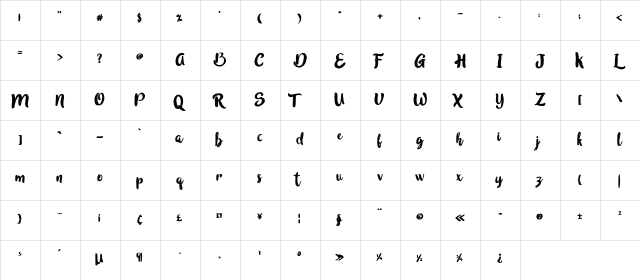
in blossom vintage Regular
Design Context for in blossom vintage Typeface
in blossom vintage wears its vintage influences proudly, with letterforms that recall mid-century signage, classic packaging, and nostalgia-driven design.
Font Pairing: Combine in blossom vintage with a simple slab or neutral sans — period-accurate companions reinforce the vintage feel without competing for attention.
Pro Tip: Lean into in blossom vintage's period character by pairing it with aged paper textures, muted colour palettes, and vintage illustration styles.